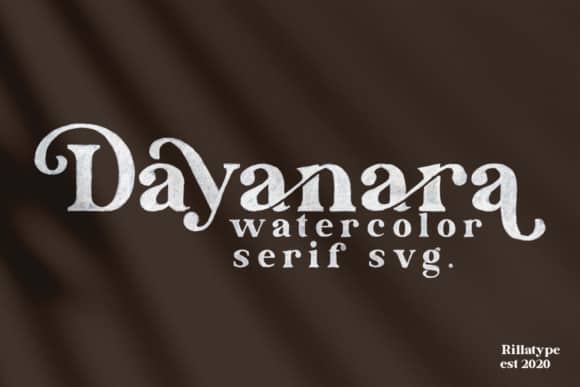
Dayanara Font
Dayanara Serif Font is a Fancy Modern vintage serif typeface with beautiful ligatures. It is a very versatile font that works well in small and large sizes. Suitable to a wide variety of designs due to its neat and simple style, Dayanara has the potential to become your favorite go-to font, no matter the occasion!